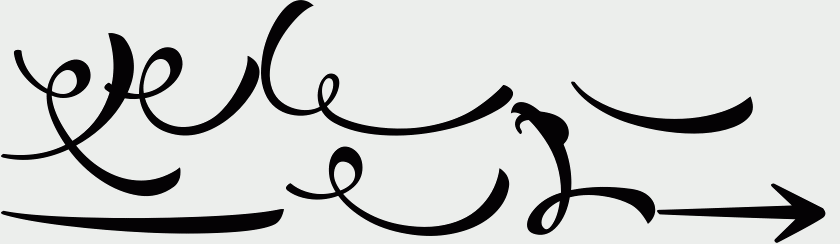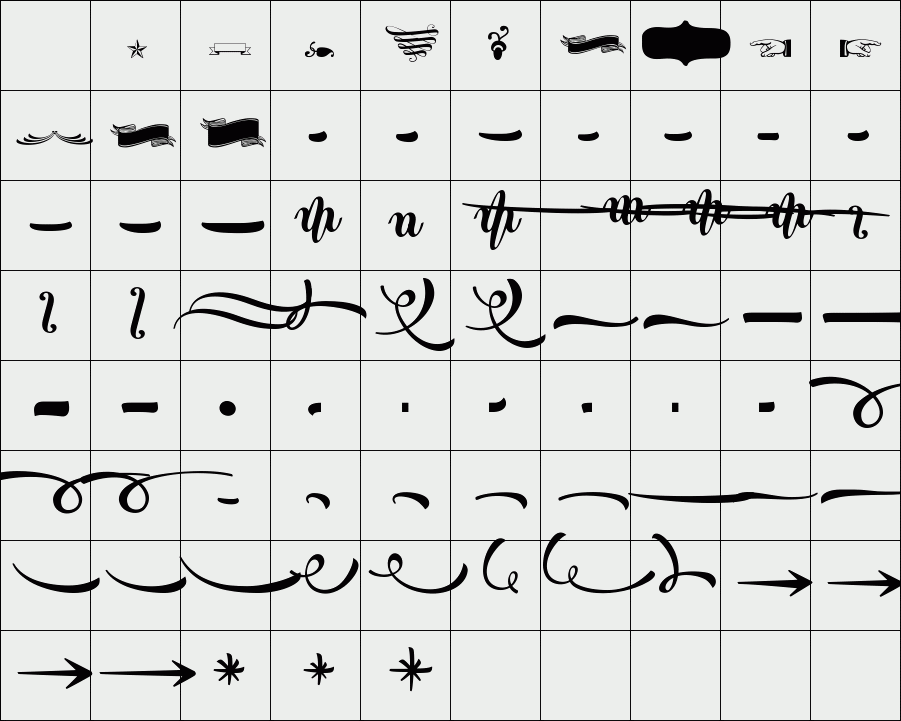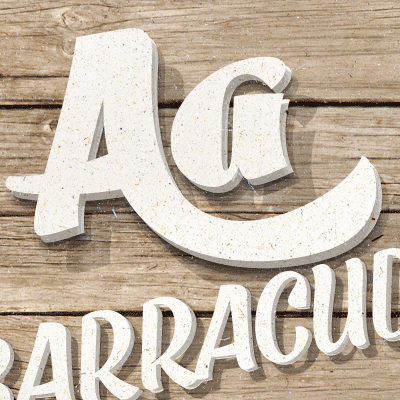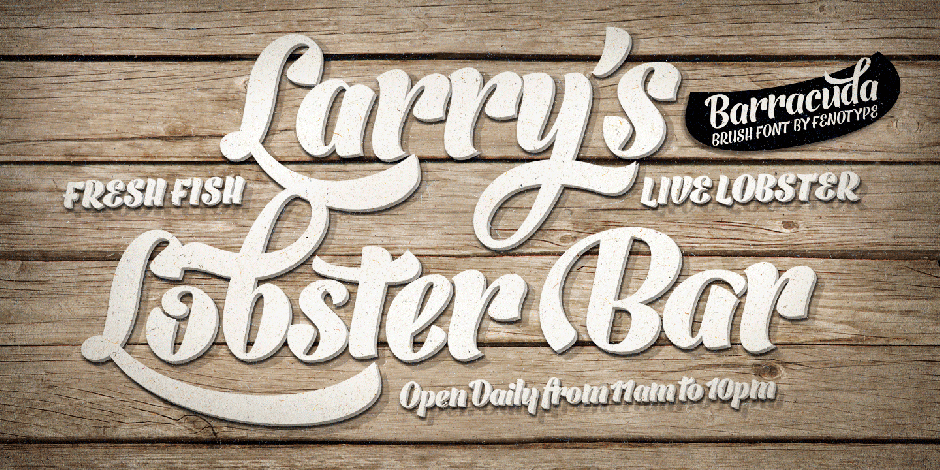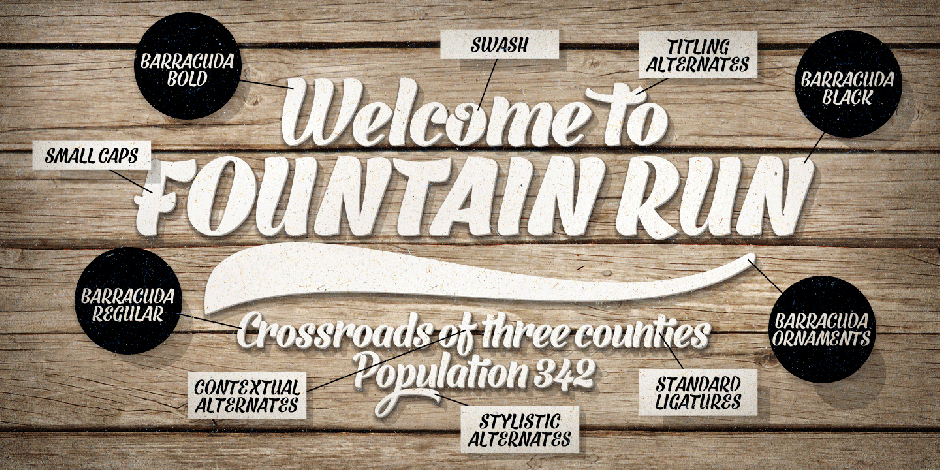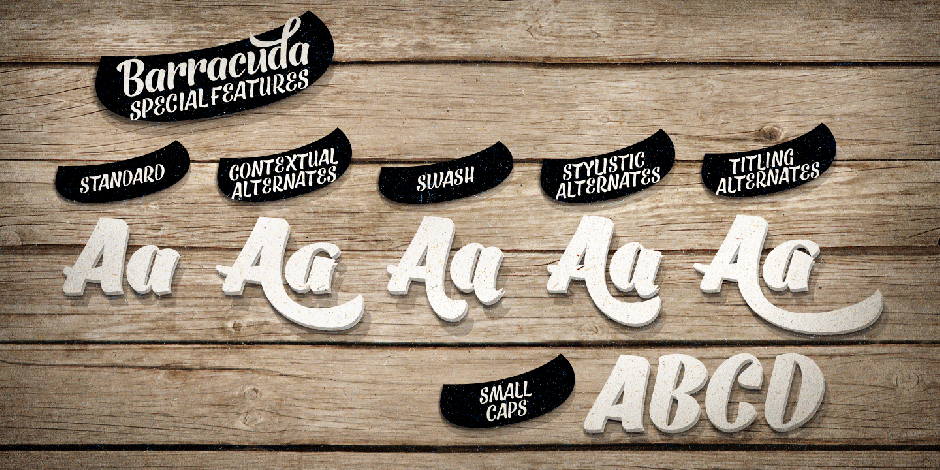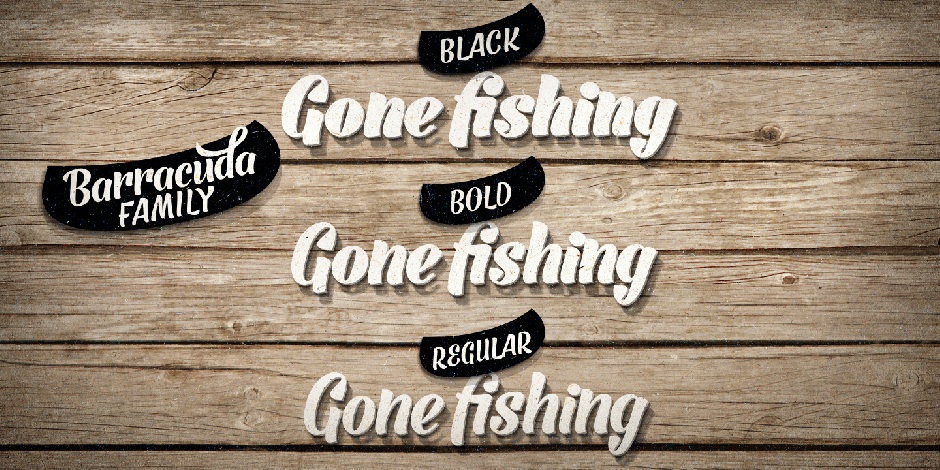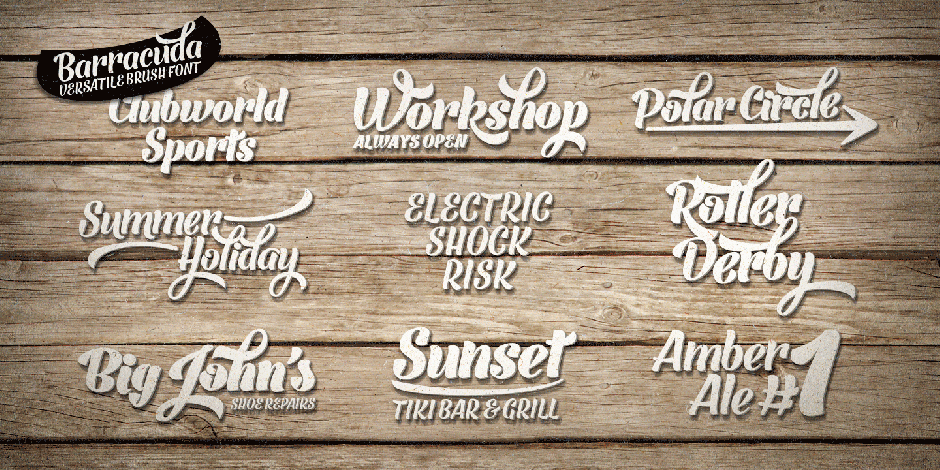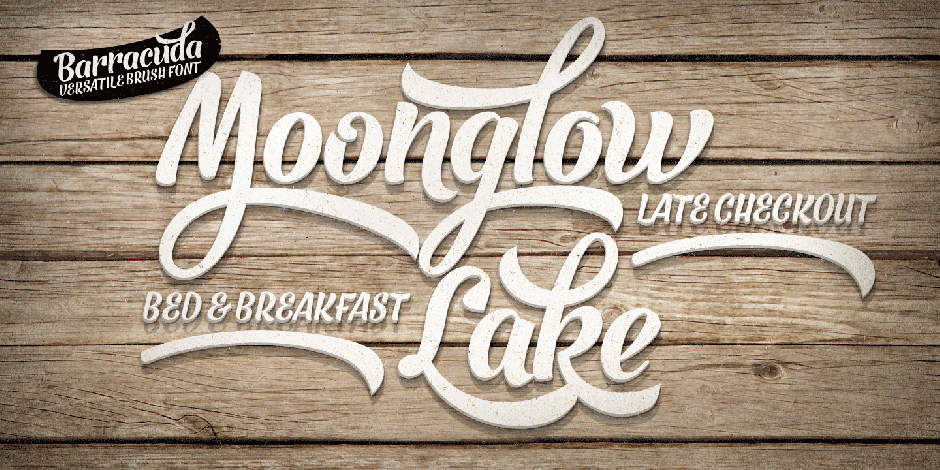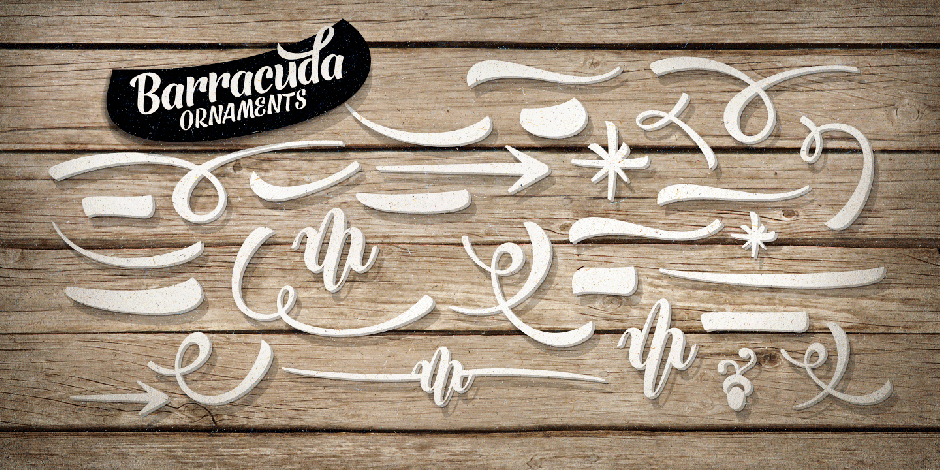
Barracuda
/ Barracuda Ornaments
Barracuda is a bold and vibrant brush family of three weights and matching ornament sets. Barracuda is packed with alternate characters, each basic letter has at least four variants to allow you create customized headlines. To activate the alternates click on Swash, Contextual, Stylistic or Titling Alternates in any OpenType savvy program or manually select the characters from Glyph Palette. Turn on Small Caps to access a complete set of capital letters designed for writing in all caps.